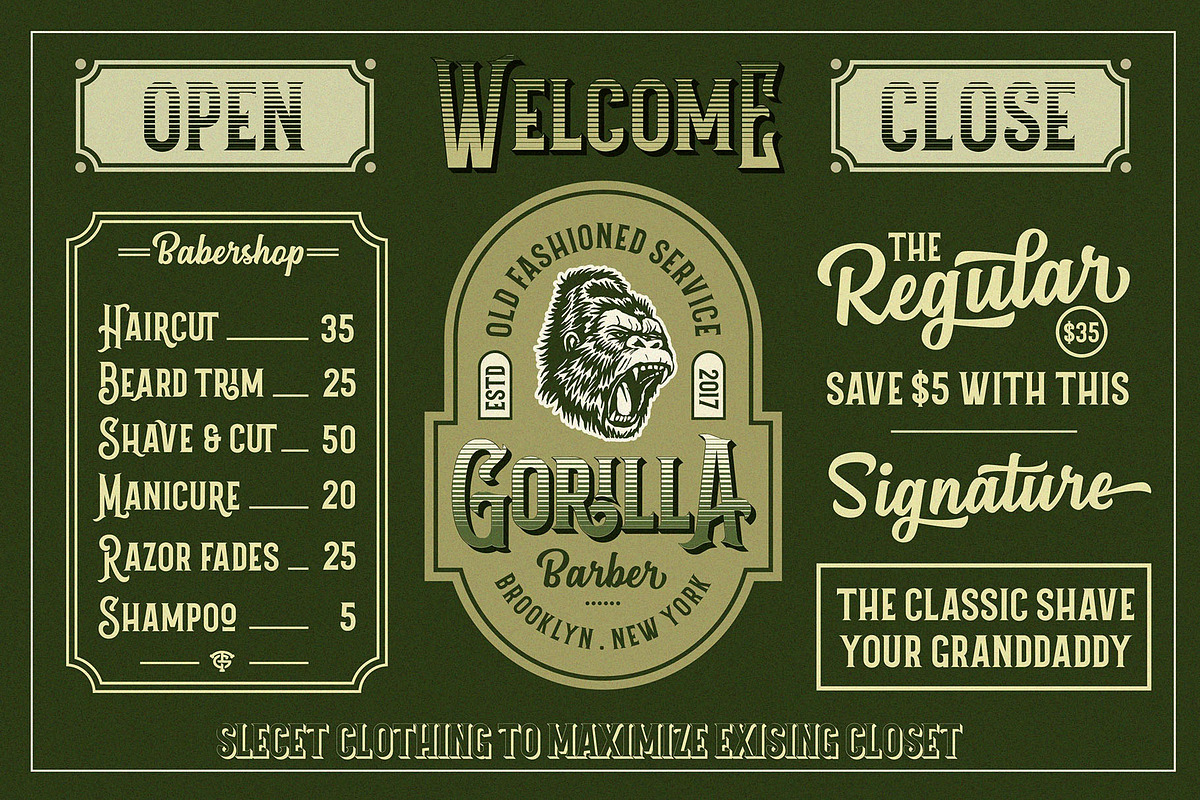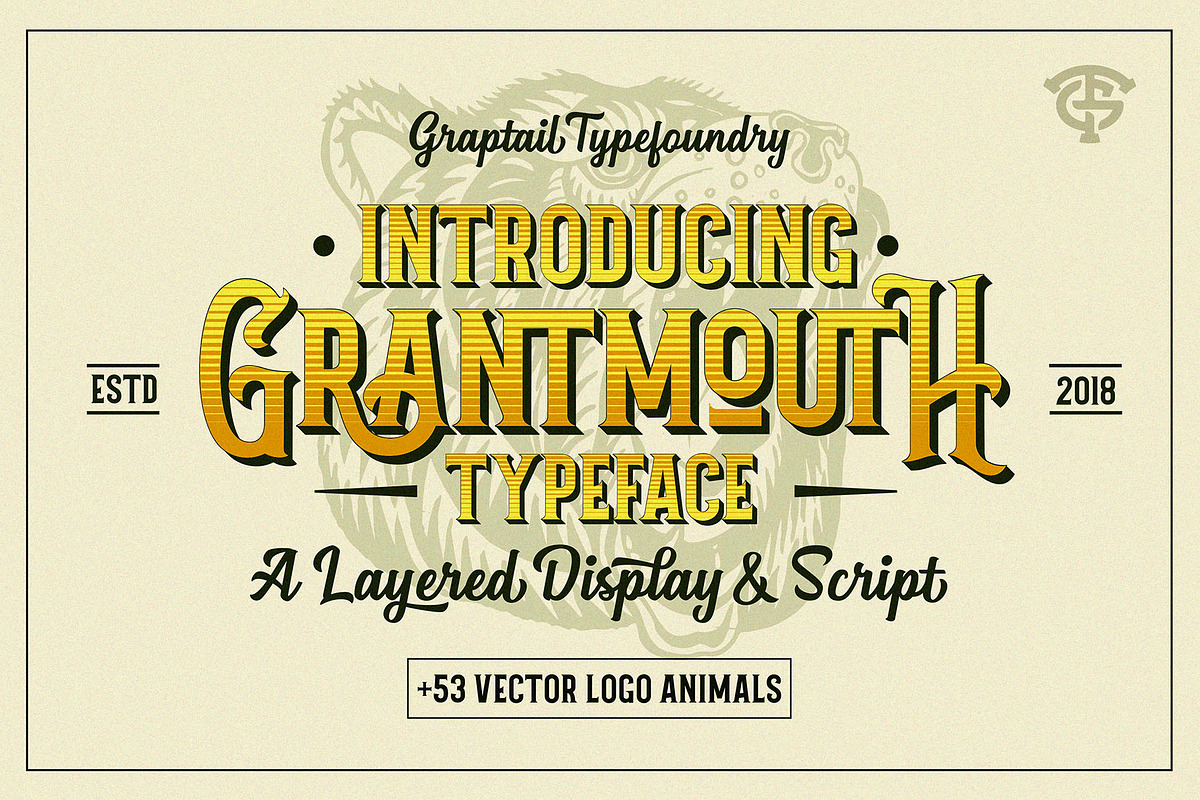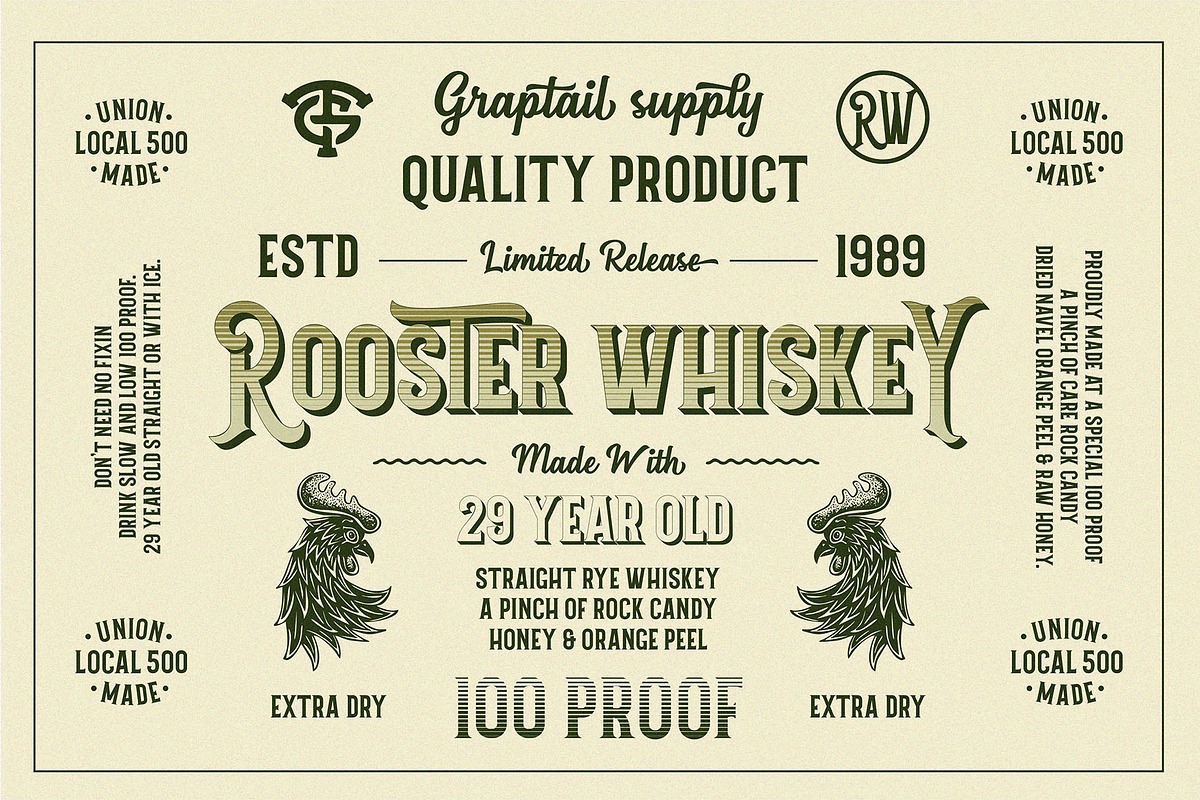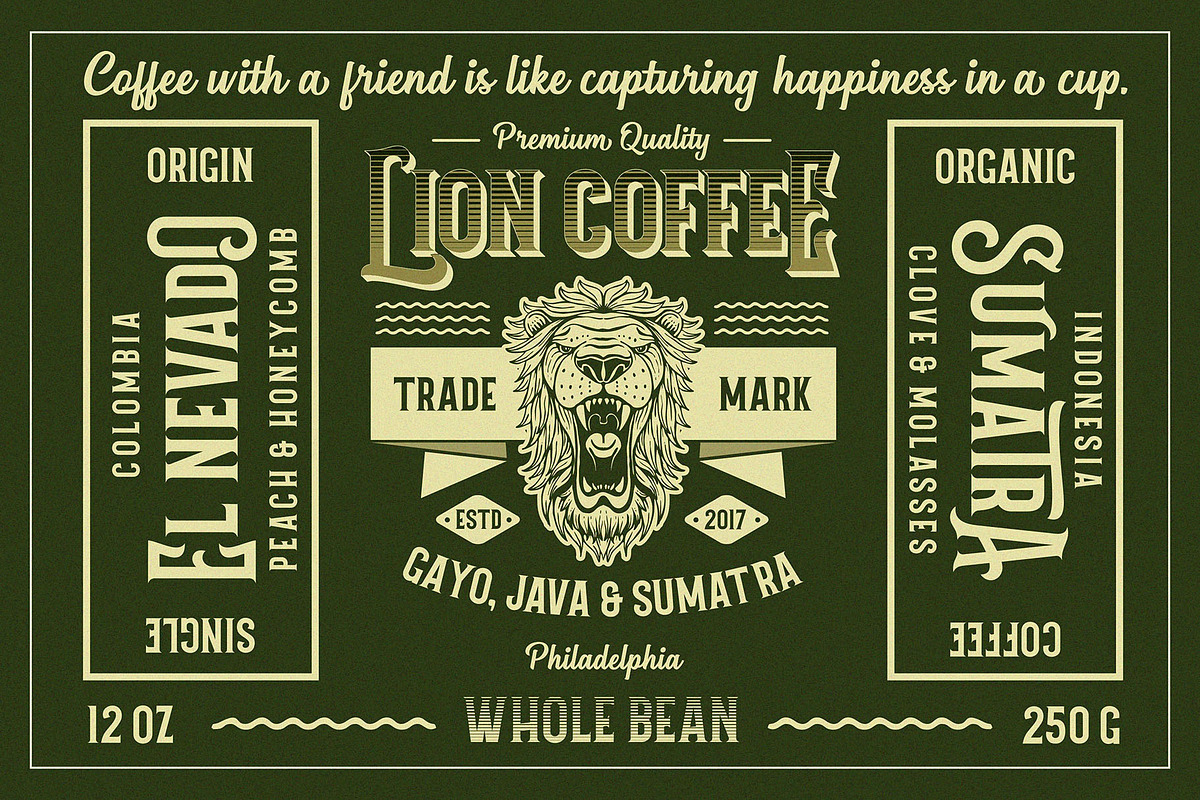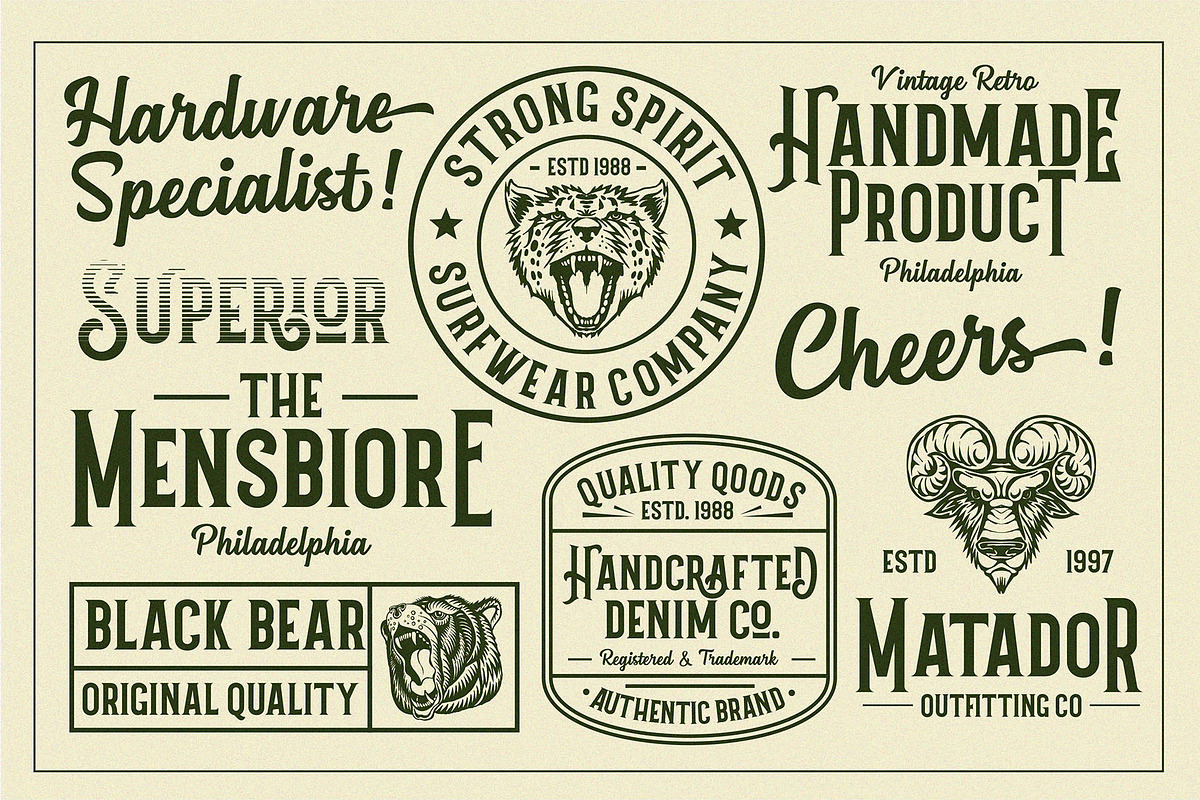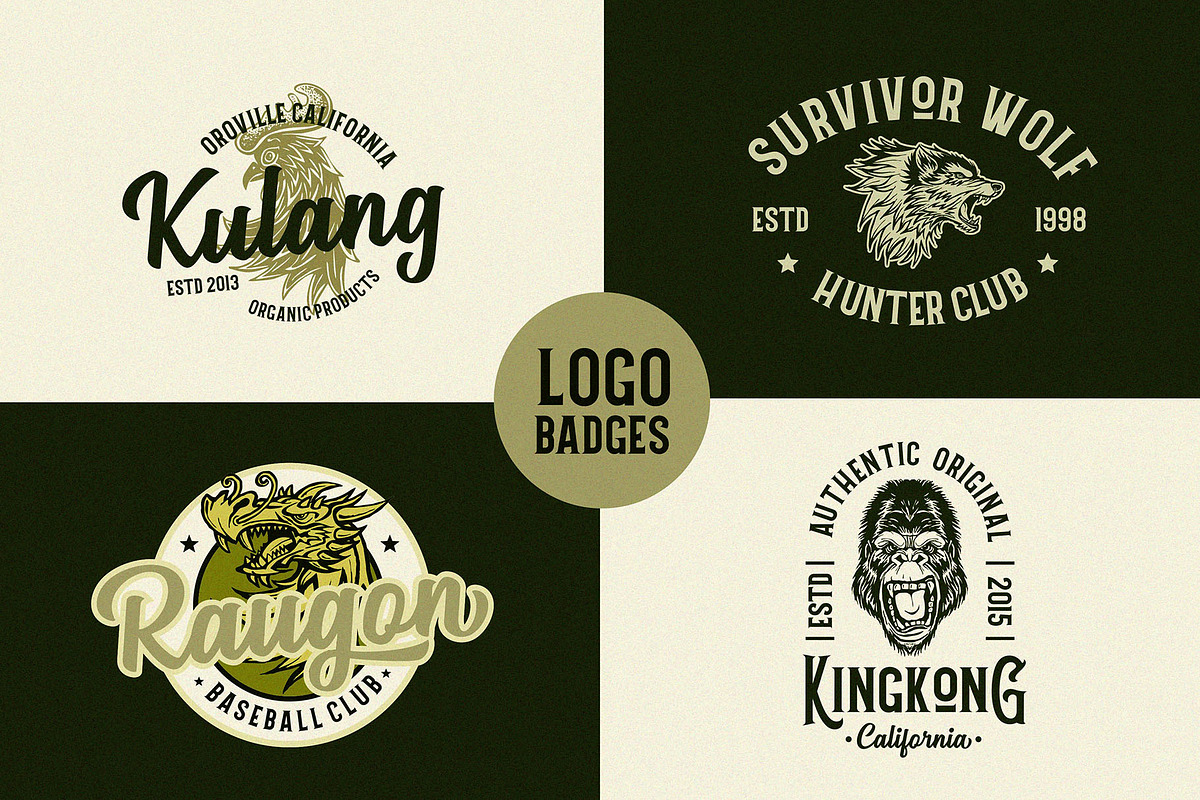
Grantmouth Font Duo + Extras
Grantmouth is a font display is made by hand, inspired by classic labels. So much inspiration as you access it. All benefits you will feel when you start to create works with Grantmouth fonts. What are you waiting for, the best price and best quality we give you with pride.
Grantmouth comes with a cool display, script, and vector font. Complete with uppercase, lowercase, numerals, punctuations and so many variations of each character include Opentype alternates, ligatures and also additional swash to let you customise your designs. Perfect to use for Logotype, Letterhead, Poster, Apparel Design, Label and etc.